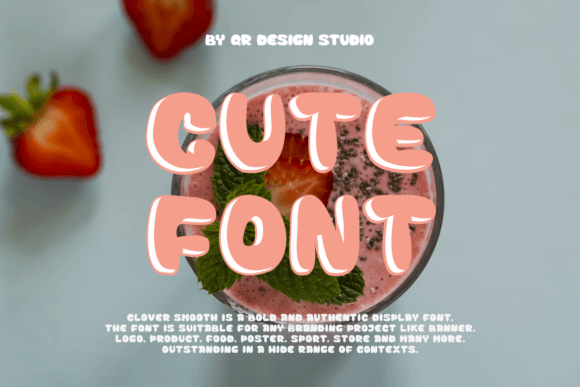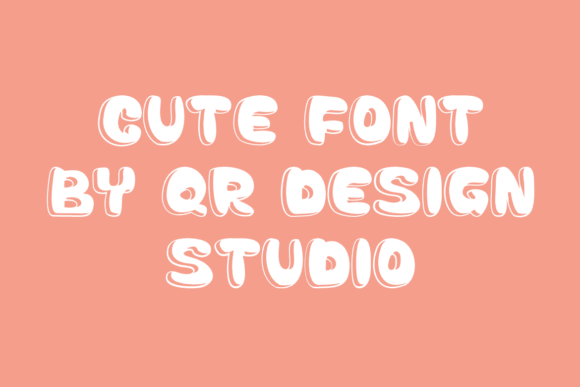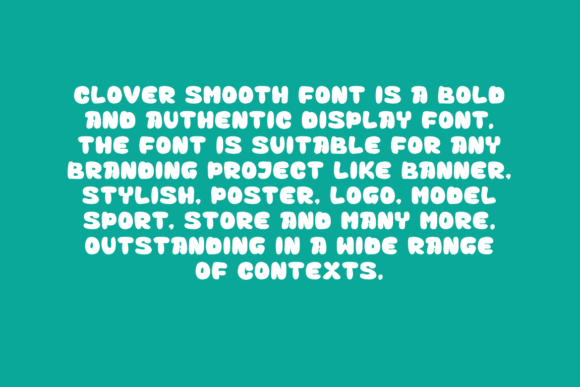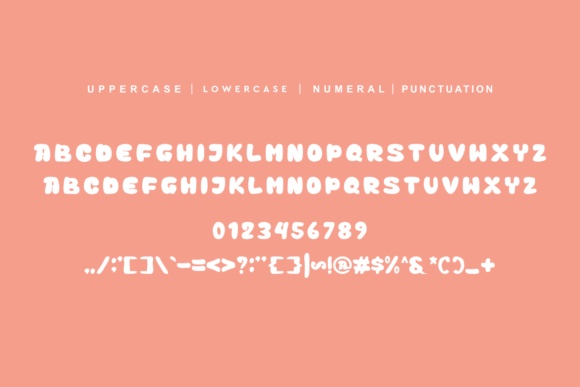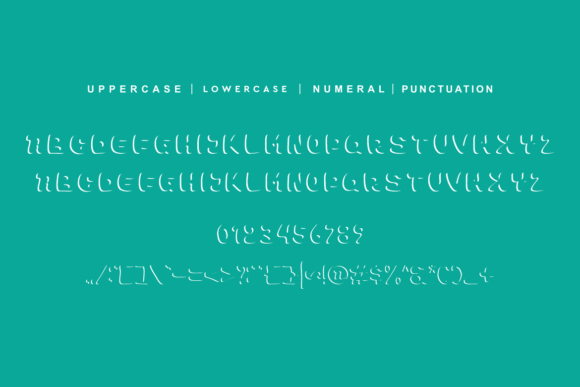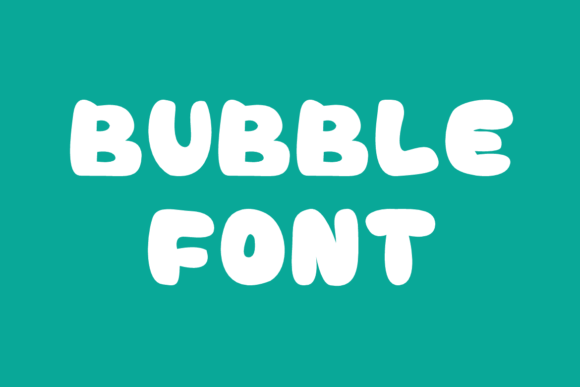
Clover Smooth Font: The Friendly and Versatile Display Font for Designers and Crafters
Are you on the hunt for a font that exudes friendliness and approachability? Look no further than Clover Smooth, a delightful display font that’s perfect for a variety of design projects. Whether you’re a designer, crafter, or simply someone who loves to create, Clover Smooth is sure to become your new go-to font.
What is Clover Smooth Font?
Clover Smooth is a childish, easy-to-read display font that’s designed to convey a sense of impeccable friendliness. Its smooth lines and rounded edges give it a soft, approachable feel that’s perfect for designs that require a personal touch. This font is ideal for use in crafts, digital design, presentations, and even making greeting cards.
Characteristics of Clover Smooth Font
Clover Smooth has several characteristics that make it a standout font:
- Childish and playful: Clover Smooth has a youthful, energetic feel that’s perfect for designs that require a playful touch.
- Easy-to-read: The font’s smooth lines and rounded edges make it easy to read, even at smaller sizes.
- Versatile: Clover Smooth can be used for a wide range of design projects, from digital design to crafts and presentations.
- Conveys friendliness: The font’s friendly feel makes it perfect for designs that require a personal touch.
Uses for Clover Smooth Font
Clover Smooth is a versatile font that can be used for a variety of design projects, including:
- Crafts: Use Clover Smooth to add a personal touch to your craft projects, such as scrapbooking, card making, and DIY gifts.
- Digital design: Clover Smooth is perfect for digital design projects, such as social media graphics, blog posts, and website headers.
- Presentations: Add a friendly touch to your presentations with Clover Smooth, perfect for educational or business presentations.
- Greeting cards: Use Clover Smooth to create personalized greeting cards for special occasions.
Why Choose Clover Smooth Font?
So why choose Clover Smooth font for your design projects? Here are just a few reasons:
- Unique and playful: Clover Smooth has a unique and playful feel that’s sure to stand out in your designs.
- Easy to use: The font is easy to read and use, making it perfect for designers of all skill levels.
- Versatile: Clover Smooth can be used for a wide range of design projects, making it a great addition to your font library.
- Conveys friendliness: The font’s friendly feel makes it perfect for designs that require a personal touch.
Tips for Using Clover Smooth Font
Here are a few tips for using Clover Smooth font in your design projects:
- Use it for headings: Clover Smooth is perfect for headings and titles, where its playful feel can really shine.
- Pair it with other fonts: Try pairing Clover Smooth with other fonts to create a unique and interesting contrast.
- Experiment with colors: Clover Smooth looks great in a variety of colors, so don’t be afraid to experiment and find the perfect hue for your design.
Clover Smooth font is a friendly and versatile display font that’s perfect for designers and crafters. Its childish, easy-to-read feel makes it ideal for a wide range of design projects, from crafts to digital design and presentations. With its unique and playful feel, Clover Smooth is sure to become your new go-to font. So why not give it a try and see the difference it can make in your designs?